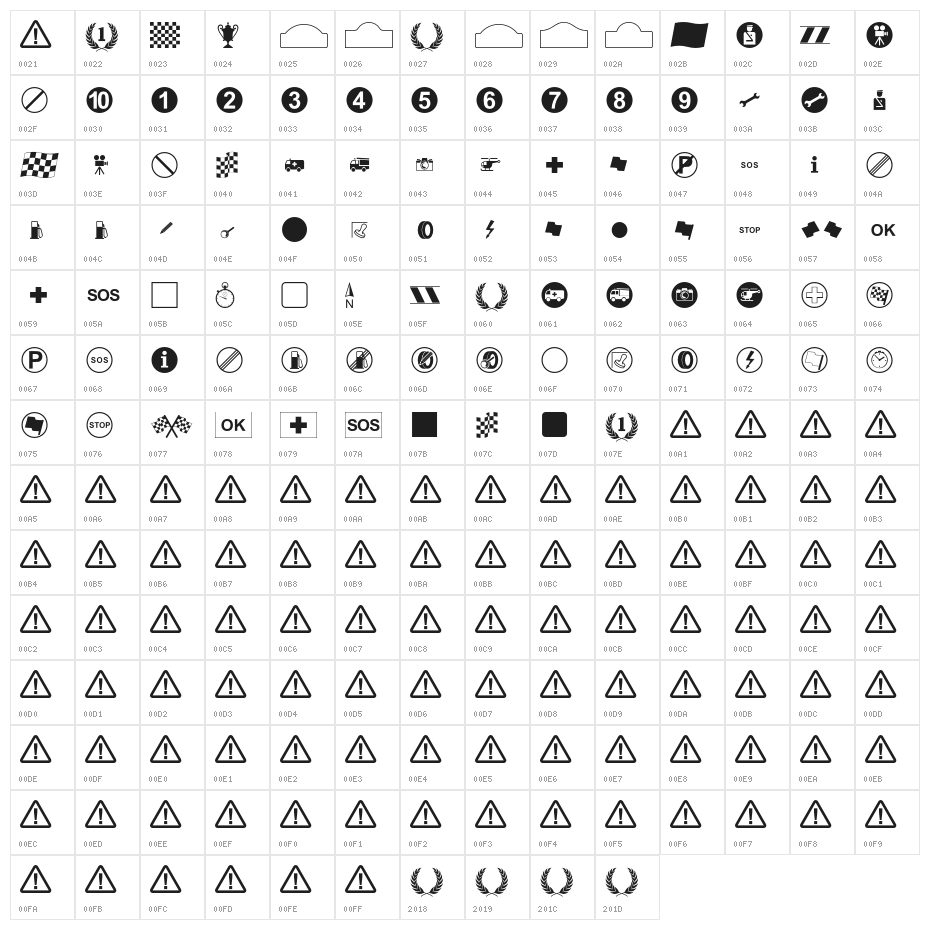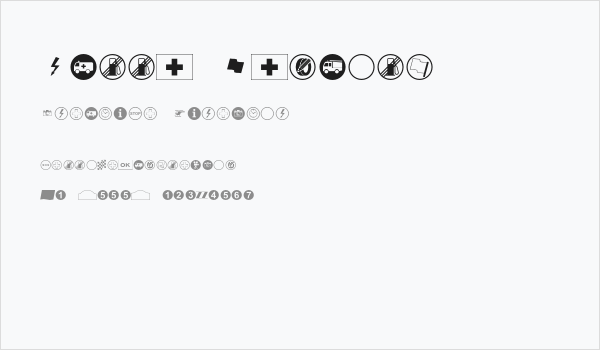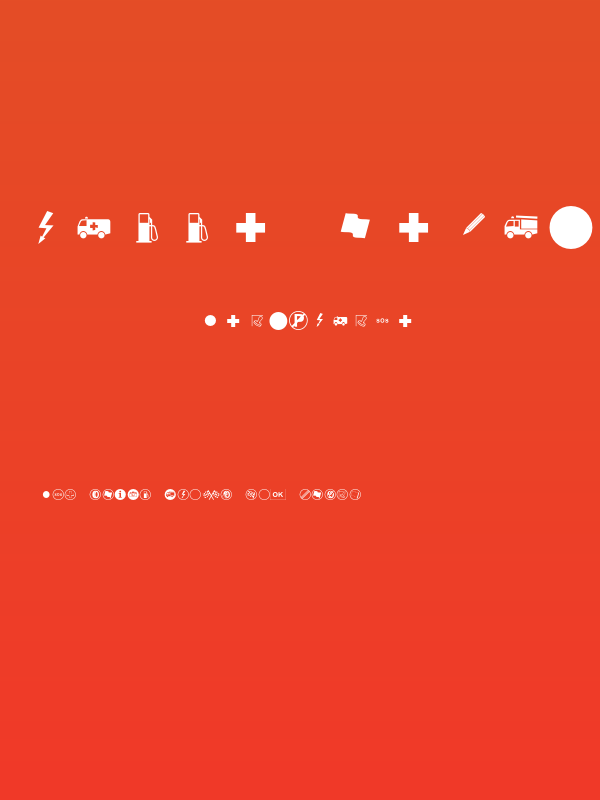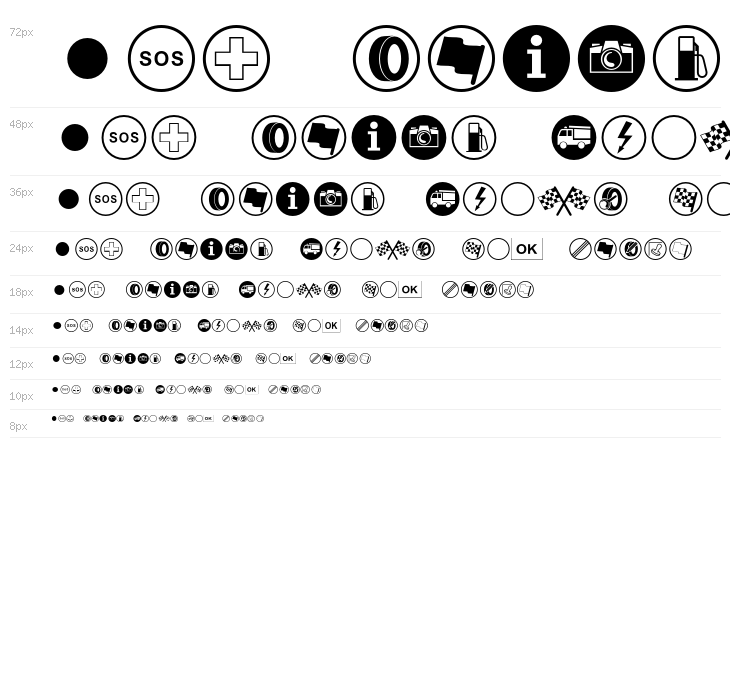
Rally Symbols Font
Rally Symbols Description
A collection of rally and automotive-themed pictograms and symbols, including vehicles, medical crosses, flags, numbers, and various informational icons, all rendered in a bold, geometric, and highly legible style suitable for signage and quick recognition.
| Overall Style | Modern, Functional, Pictographic |
| Use Case | Signage, Maps, Infographics, Instructional Materials |
| Proposed Projects | Motorsport event signage, rally maps, instructional guides, wayfinding systems, automotive infographics. |